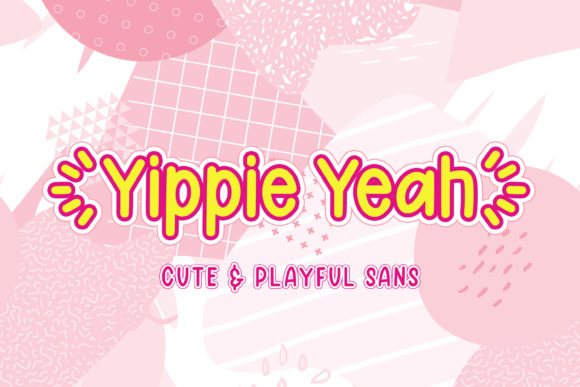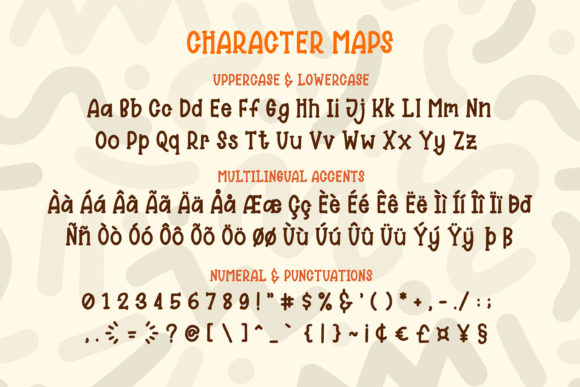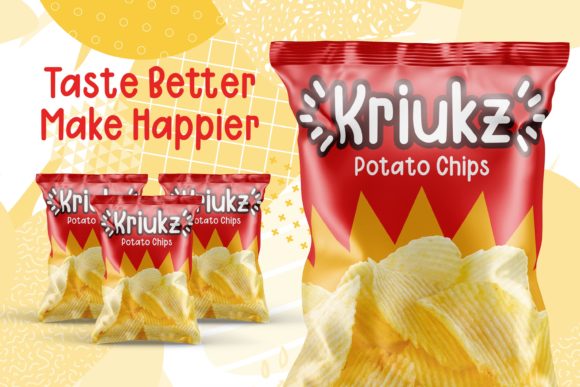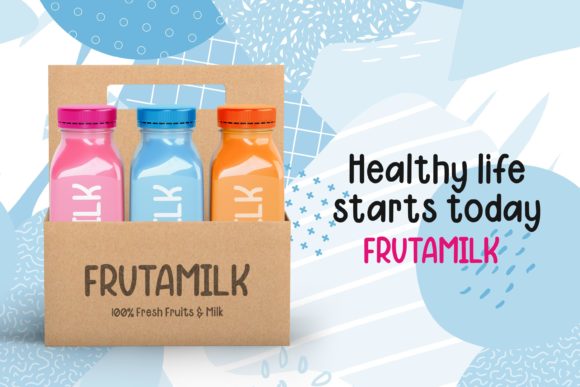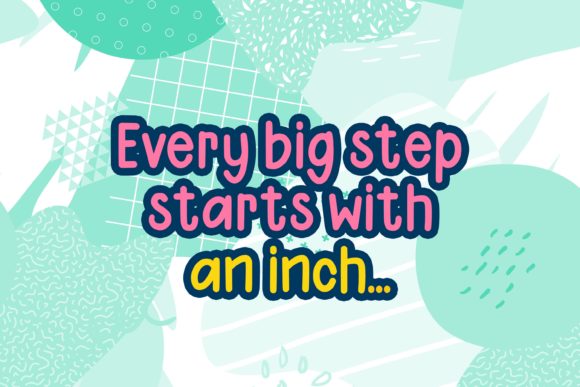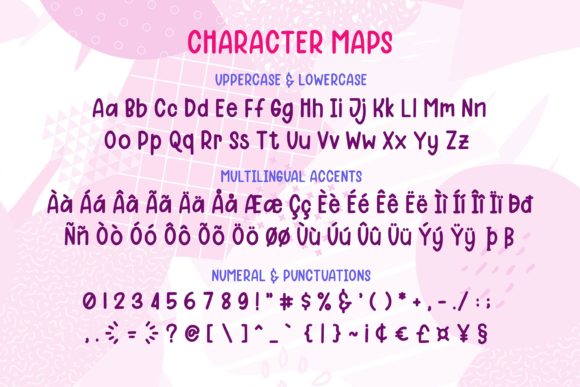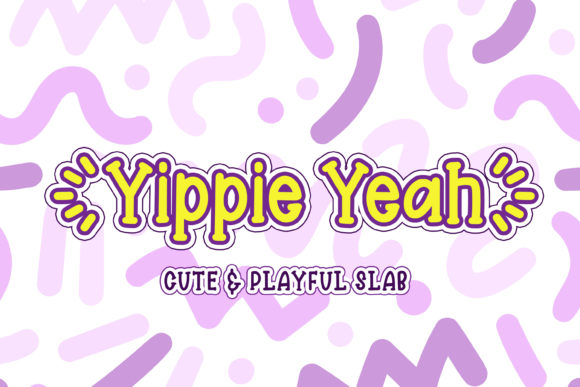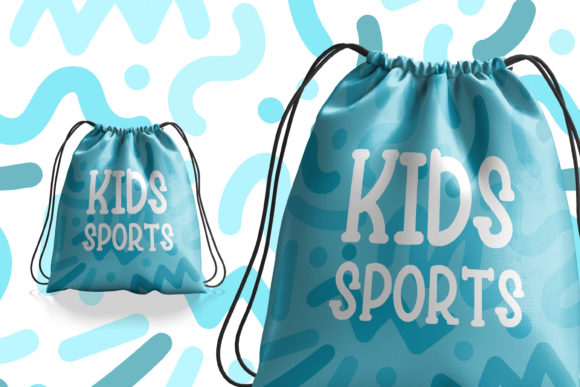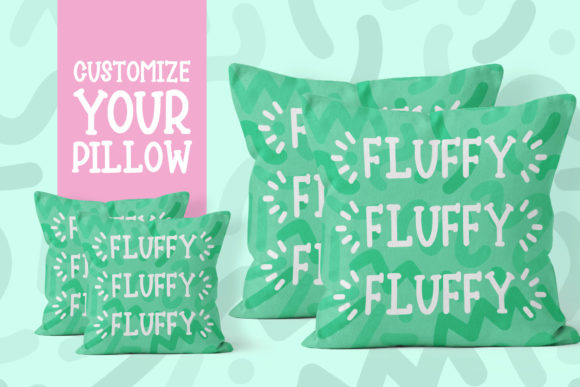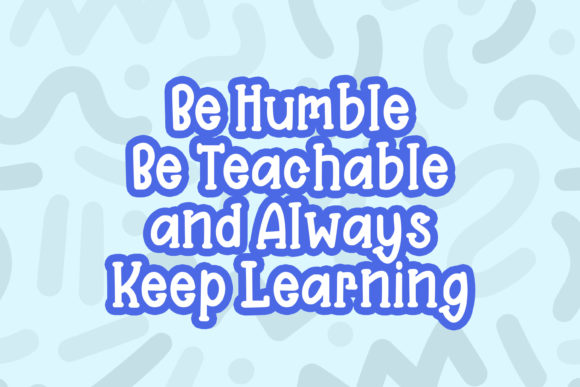
Yippie Yeah Font
About Yippie Yeah Font
Yippie Yeah is a stylish and playful handwritten font. It comes packed in two versions that makes it super versatile. This versatility will appeal to a wide range of crafty ideas, from letterheads and titles, to stationery.